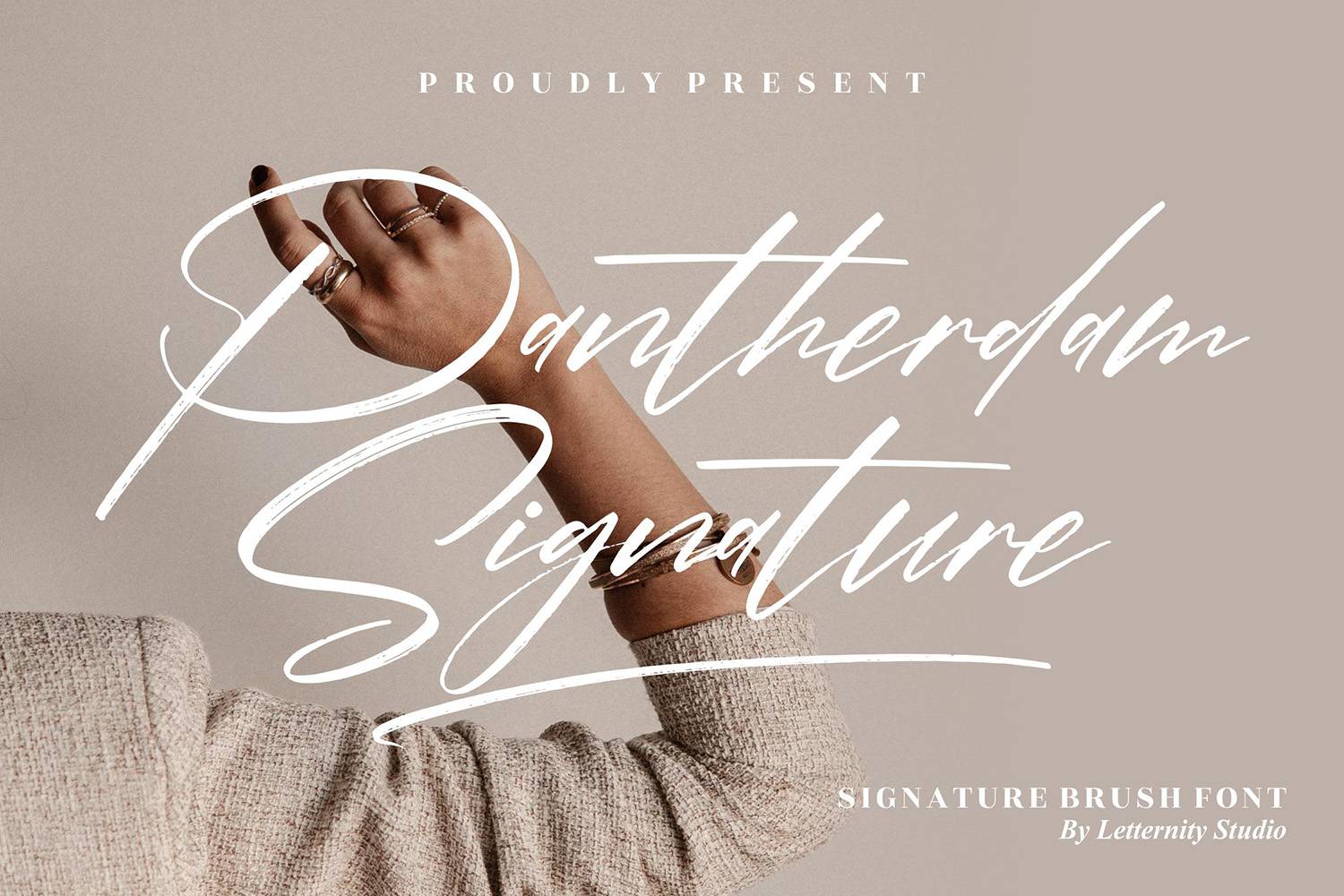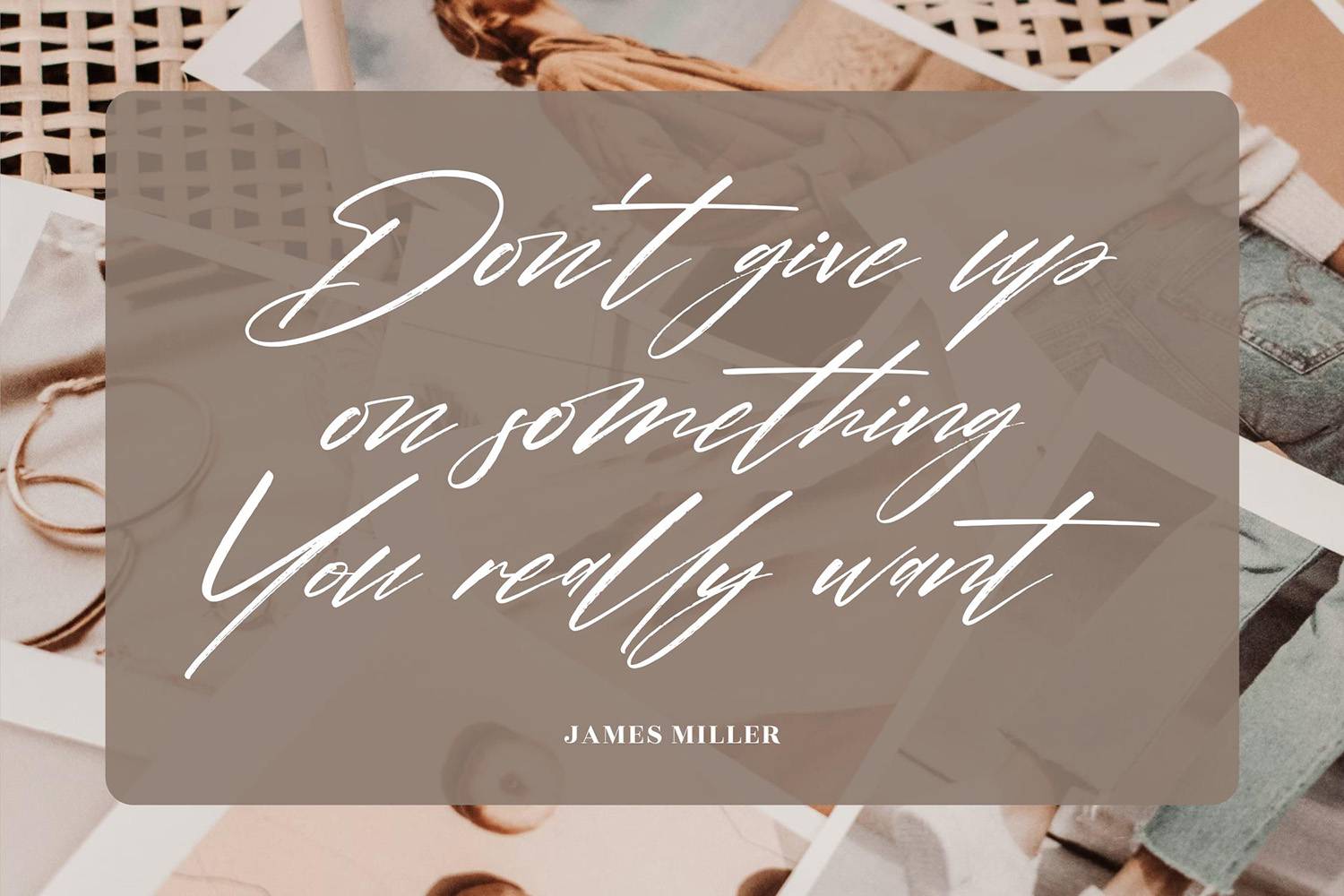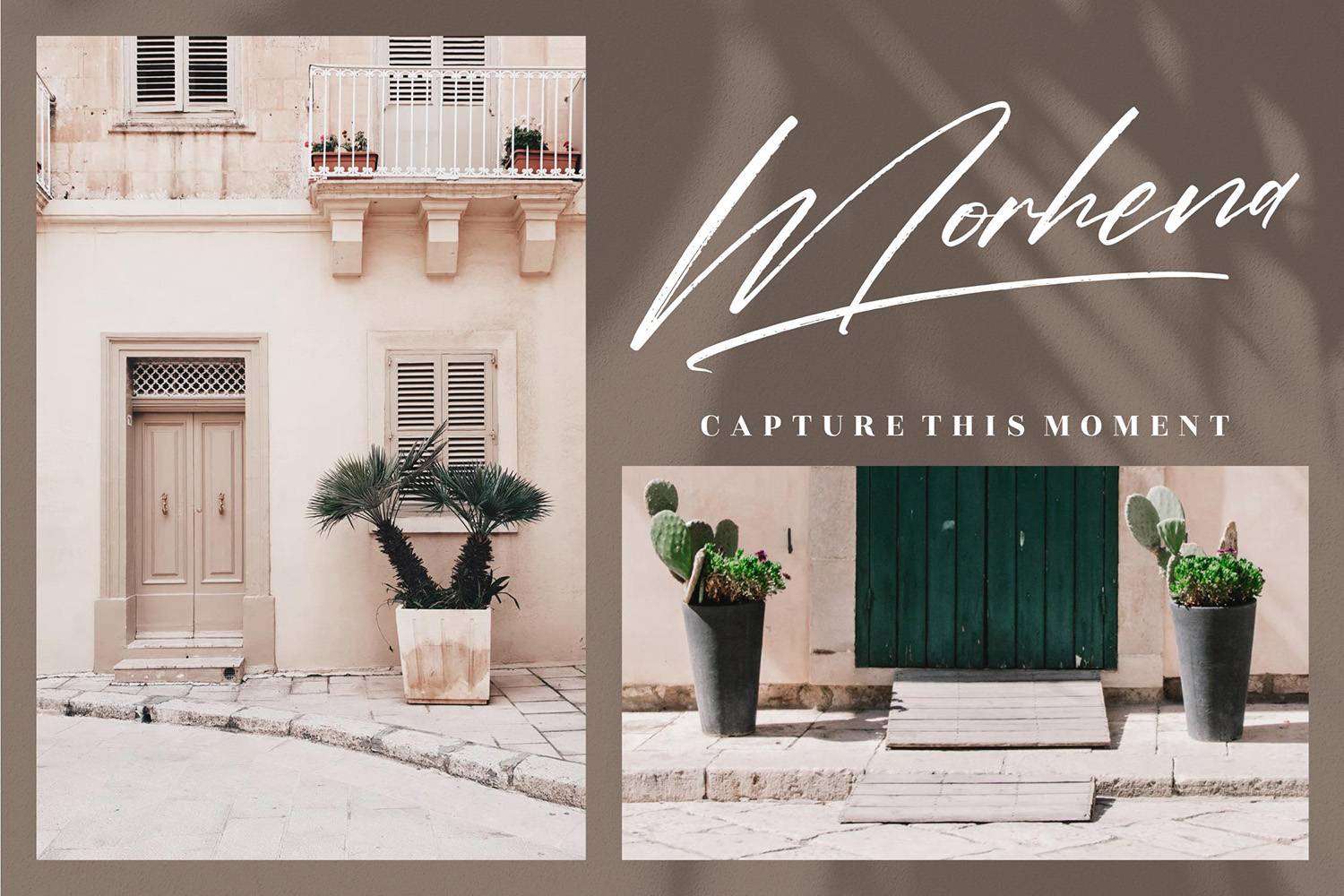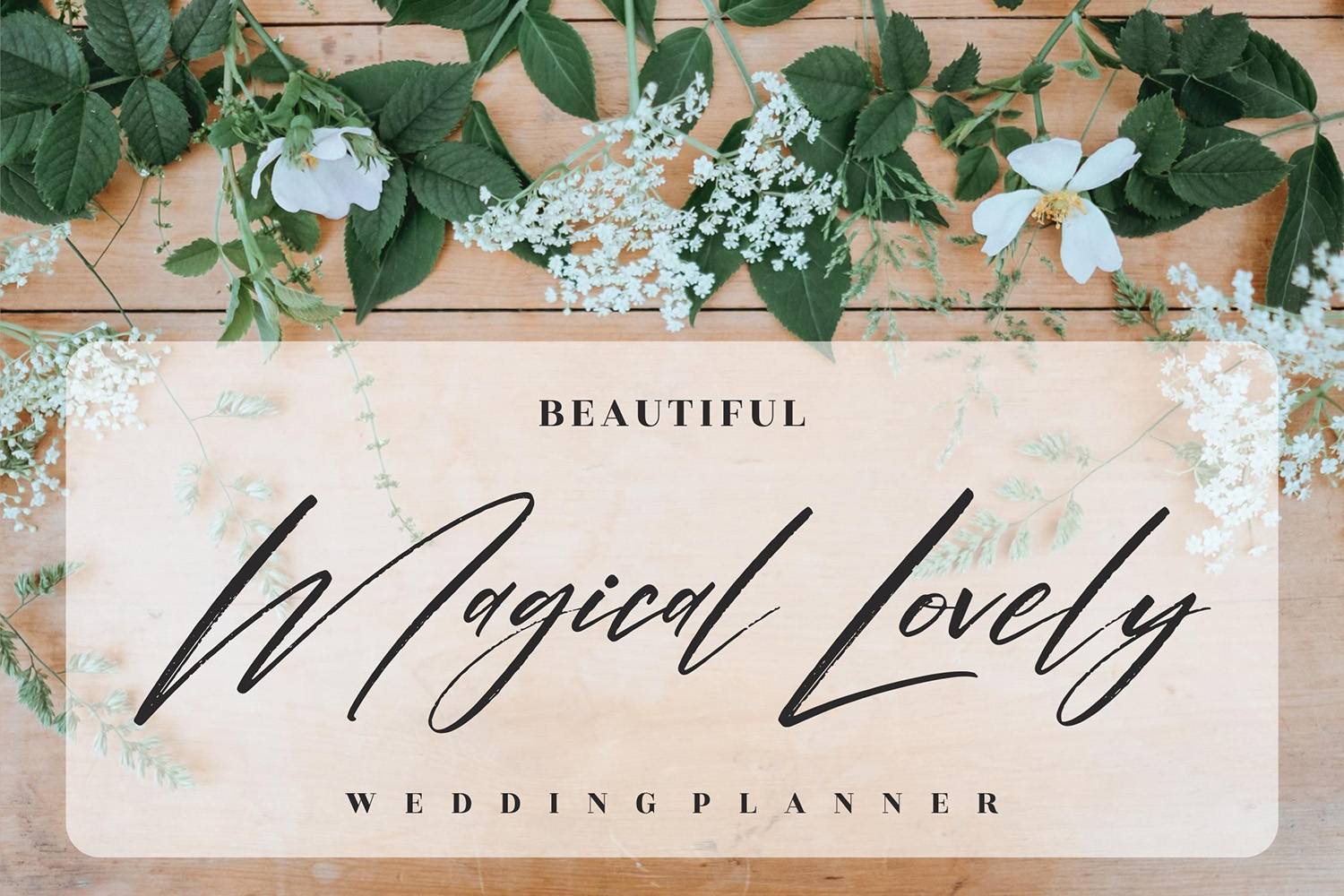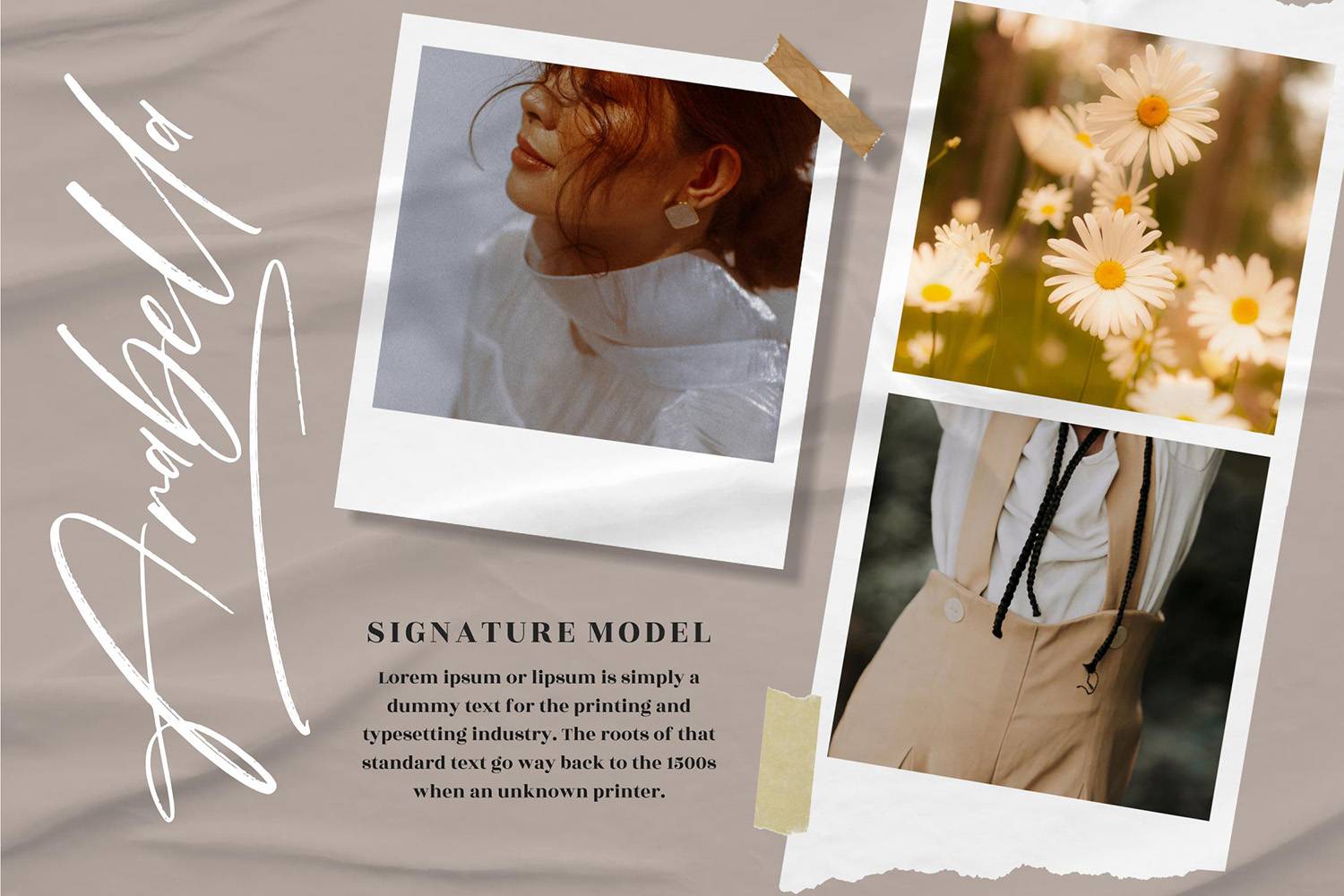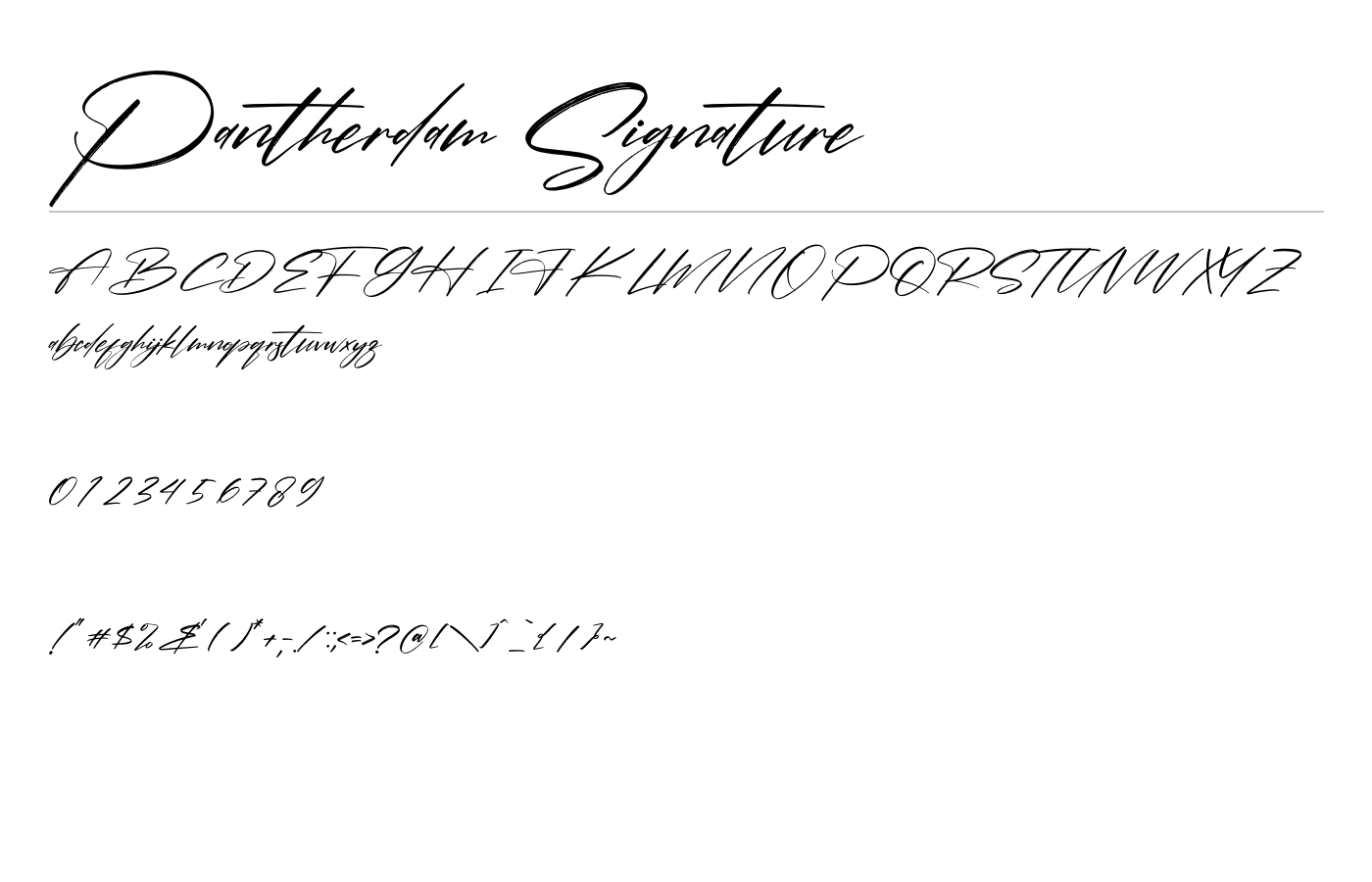
Pantherdam Signature is a delicate, elegant script font that mimics natural handwriting with smooth, flowing strokes and a light, airy feel. Its slender letterforms and subtle variations create a sophisticated, personal touch perfect for branding, invitations, and stylish headlines where a refined, signature-like appearance is desired. This font works beautifully in fashion, luxury, and creative projects that want to convey grace and individuality.
Pantherdam Signature Font
About Pantherdam Signature Font